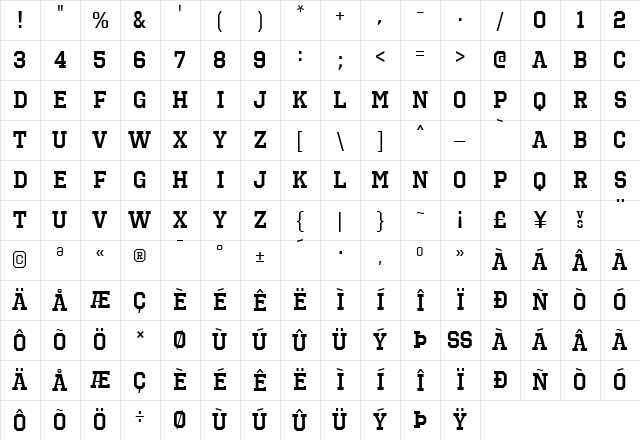
Complete Octin Sports SemiBold glyph index. Displaying only characters natively supported by Octin Sports SemiBold font.
Octin Sports brings high-energy athletic personality to the page - its confident, muscular forms are built for impact. Its bold stroke weight gives it real presence on the page.
Pro Tip: Use Octin Sports in all-caps headlines where its athletic energy can fully express itself. Pair with a solid, simple sans for supporting text.